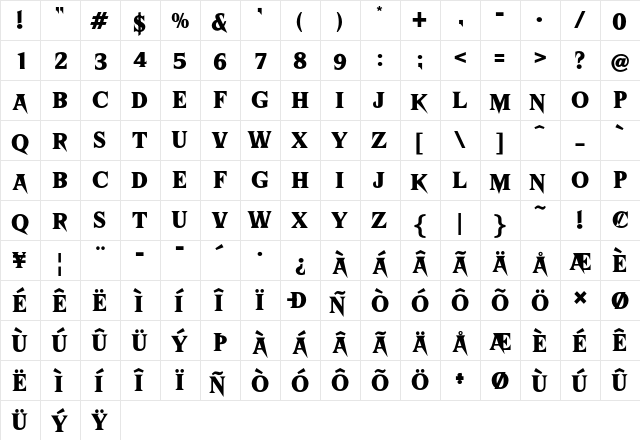
American Frights Regular Font Preview
American Frights Regular
Design Context for American Frights Typeface
American Frights is a composed and adaptable typeface that performs quietly and consistently across a wide range of design contexts.
Pro Tip: Use American Frights in both headline and body roles to test its range before committing to a single application.